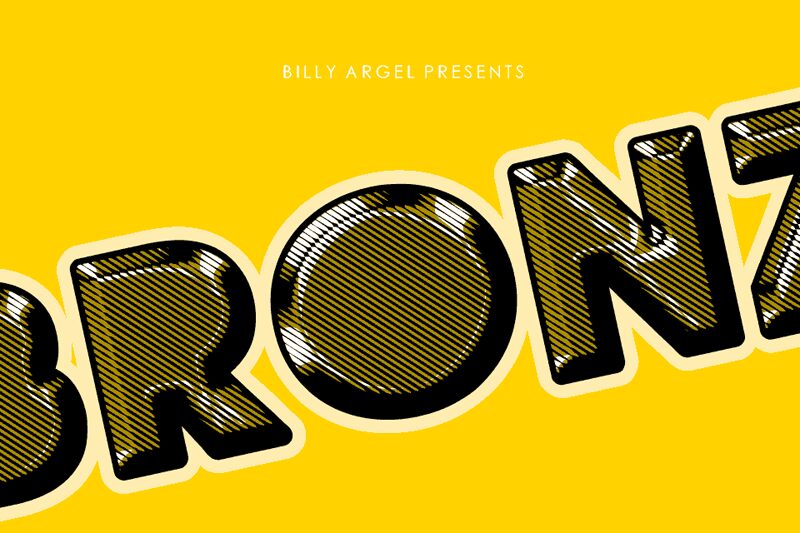
BRONZEAGE PERSONAL USE Bold
Looking for a font that is bold and daring for your next creative project? Look no further than BRONZEAGE Bold. This extra-bold display font from Billy Argel is perfect for designs that need to make a statement. With decorative all caps, this font adds a touch of vintage flair to any design. It’s ideal for branding, packaging, posters, and social media graphics. Unleash your creativity with BRONZEAGE Bold – the perfect choice for any project that needs an extra boost of personality and style.
Four layered fonts.